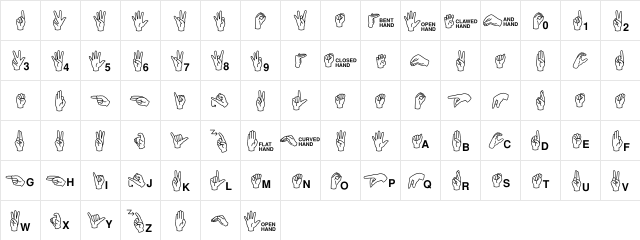
MiniPics ASL Regular
Design Context for MiniPics ASL Typeface
MiniPics ASL is a composed and adaptable typeface that performs quietly and consistently across a wide range of design contexts.